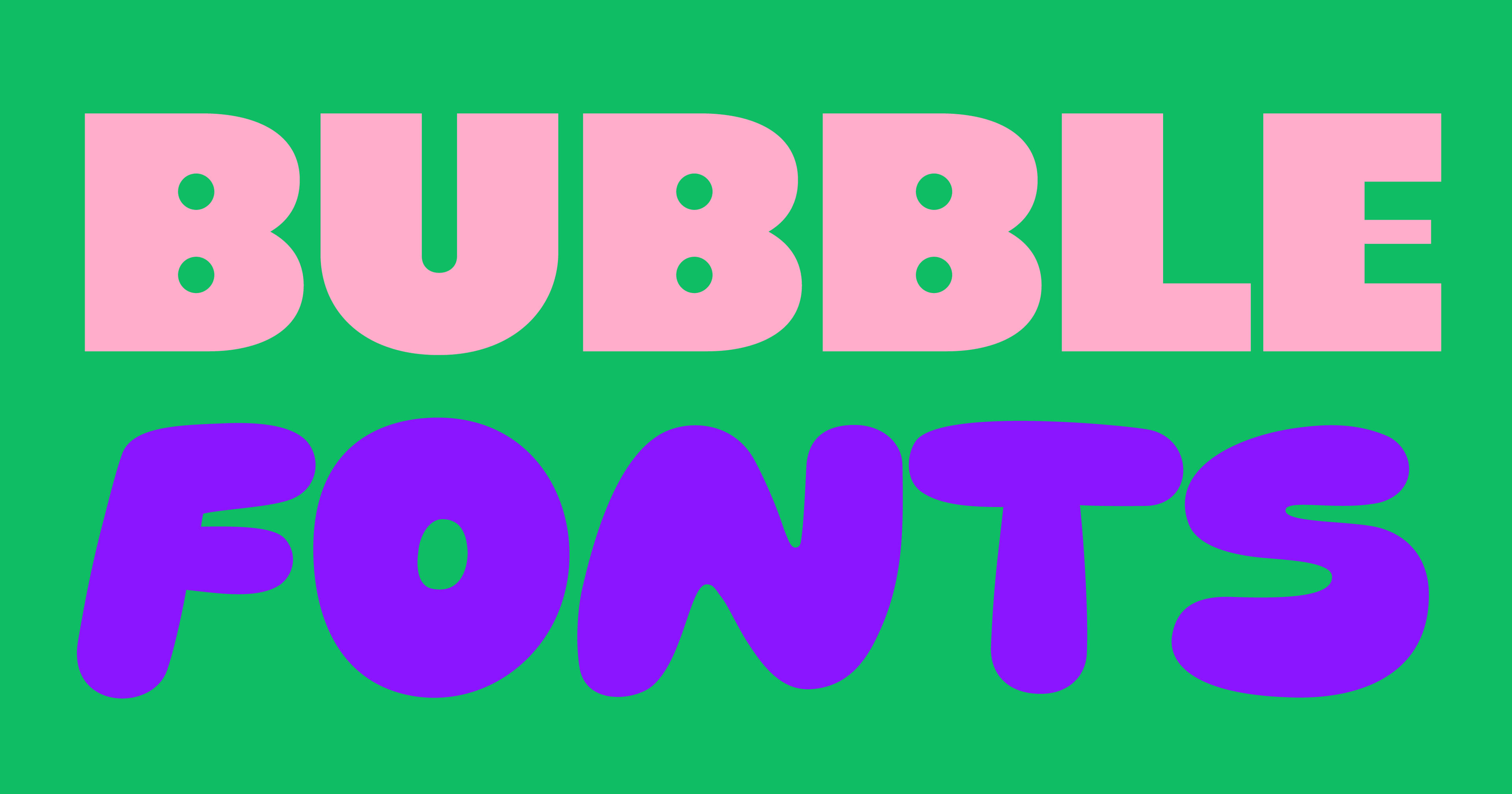
In this article, we’ll check out a few bubble fonts that are fun but also look modern.
1. Bool font with stylistic sets for playfulness
Bool is a playful geometric bubble font whose counters are rounded. This effect is best seen using bolder font weights, such as Bold, ExtraBold, and Black. In the image above, check out the letters B and O.
This font also comes with stylistic alternates, alternate characters that a designer can swap out with a design program (Illustrator or Figma, for example).
2. Lace, rounded type in bubble shape (bold weights)
Lace Rounded has nine font weights, from Thin to Black. Whereas the thinner weights make text designs look like they were written with a finer brush, almost inky, the bolder weights bring out the bubble effect of this font.
Wavy, twisted letters, such as m and r, remind us of modeling balloons, and the rounded terminals add to a balloon feel.
3. Vole font with rounded counters
This type creates a balloon feeling by filling in the counter spaces of the letters. For example, check out letters b and w in the image above to see how this style makes words look watery or inky.
4. Skay font for a bubble balloon style
The bolder the font weight, the more of the balloon style of this typeface is to see. Like in the letter Y, round arms add an organic, fluid quality. This font comes in uppercase letters only but has nine font weights to pick from. Skims is a popular brand example that uses a type design like Skay’s.
5. Goji, rounded geometric type
This type is a simple Arial Rounded-like design based on a classic sans serif geometric frame with rounded terminals to create a friendly design.
Goji turns into a bubble font set in Bold, ExtraBold, or Black. This font also comes with stylistic alternates, such as the letter O, for unique text stylization.
Rounded, geometric fonts like Goji are popular amongst brands that want to communicate friendliness and approachability. The “Crocs” logotype is an example of this style of typeface.
6. Loco, similar to Cocomelon font
Loco is a rounded bubble font inspired by kids and similar to the Cocomelon font. Loco is fun in style. Some letters are minimally tilted, the counters are rounded, and the terminals have a slight bleed. This typeface uses highlights to create a 3d effect. Best suited for logos and headlines.